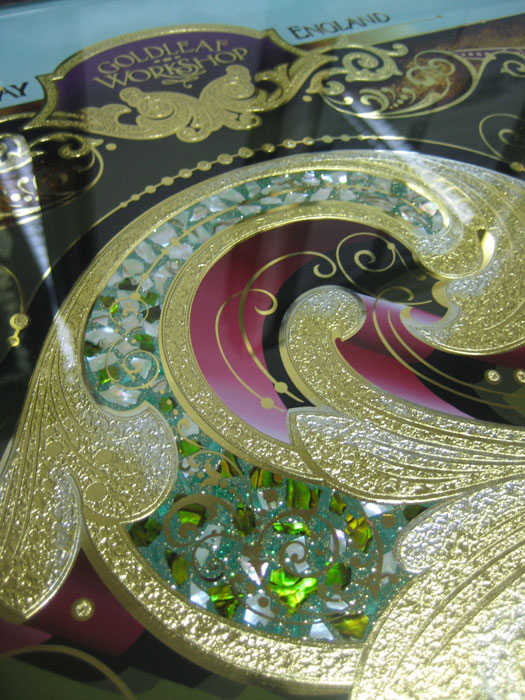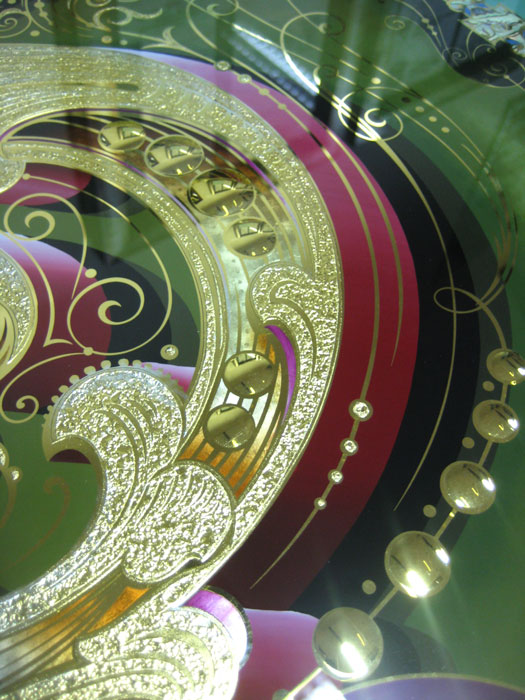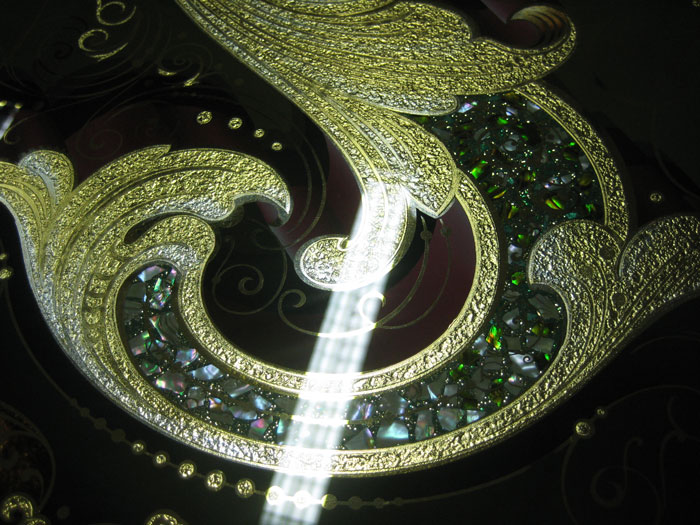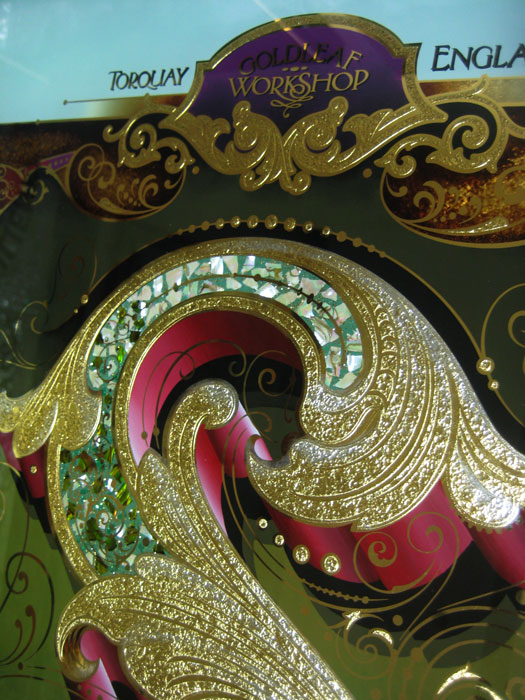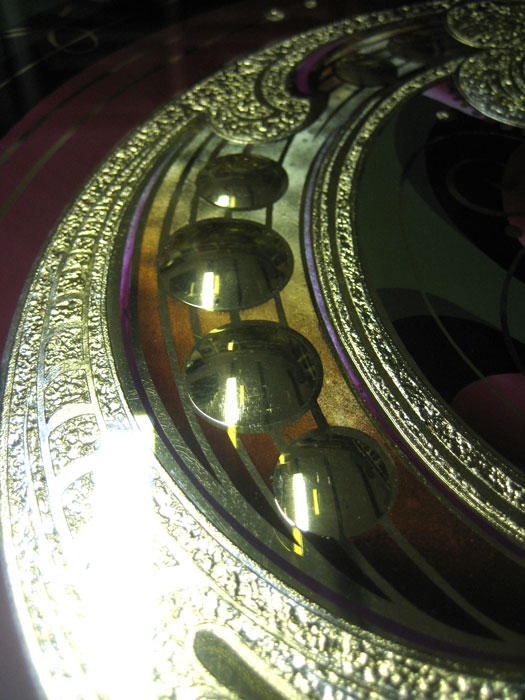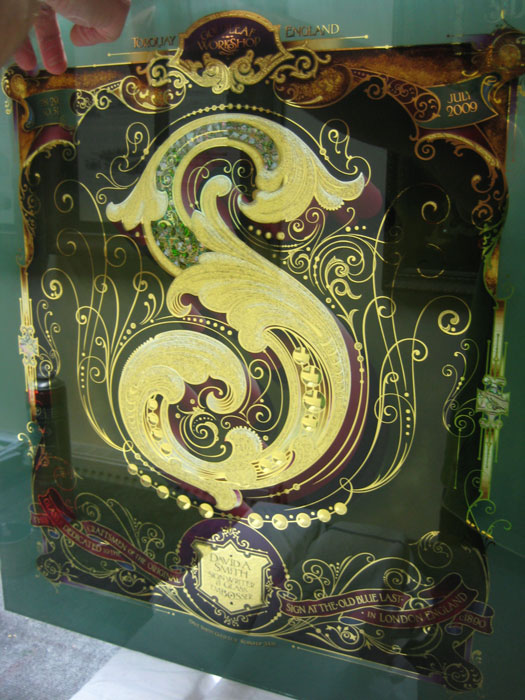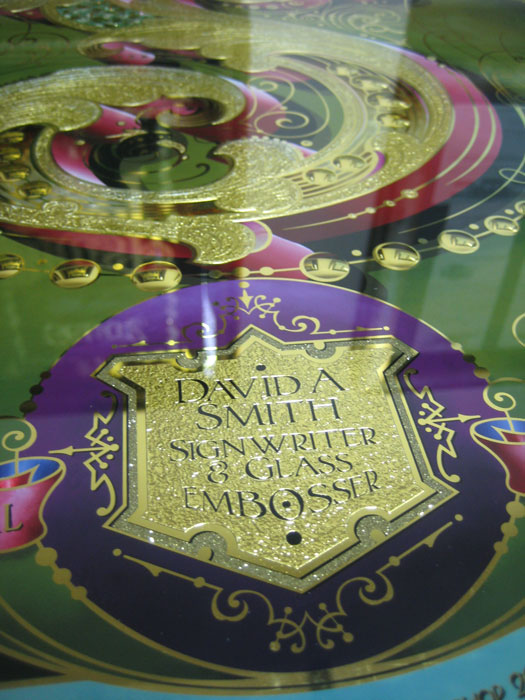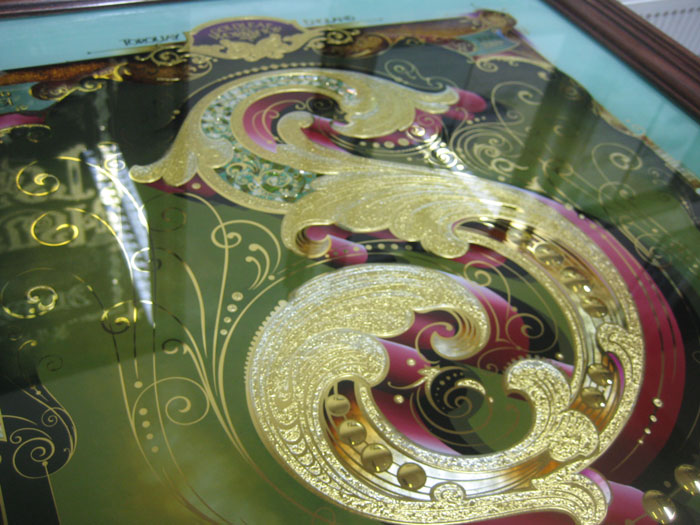
GoldLeaf Workshop England
I had a goldleaf workshop here a few months back and never had the chance to finish my own panel Every now and again between other work I managed to finish it up today. Once the other class mates are done I will get them to post there panels here.
This piece has some puntie cuts and acid etching throughout the letter which also would have been nice to have had some edge cuts and diamond cuts running up through this letter S. (time against us) went for a bit of a clashing colour scheme but I think it works once framed. The shading was all hand brushed and blended on the shadow of the letter.
Over the top, as usual. What a beautiful piece!
Yeah, you're right - it really is missing something. Really needs the edge cuts and diamond cuts running up through the letter. (You've gotta be kidding.)
P.S. Great color scheme.
Again, amazing. How thick is the glass and how large is this piece?
Some nice comments from you guy's thanks very much. Dan your welcome here anytime you know that, hopefully the downturn will get better and costs for traveling will turn around. The size is about 26'' Bob 1/4 plate glass.
Much like early 1900's apprentice turn-out pieces. Nicely done as usual.
I love punties, I see them in my sleep!
6 years of apprenticeship put in one week.